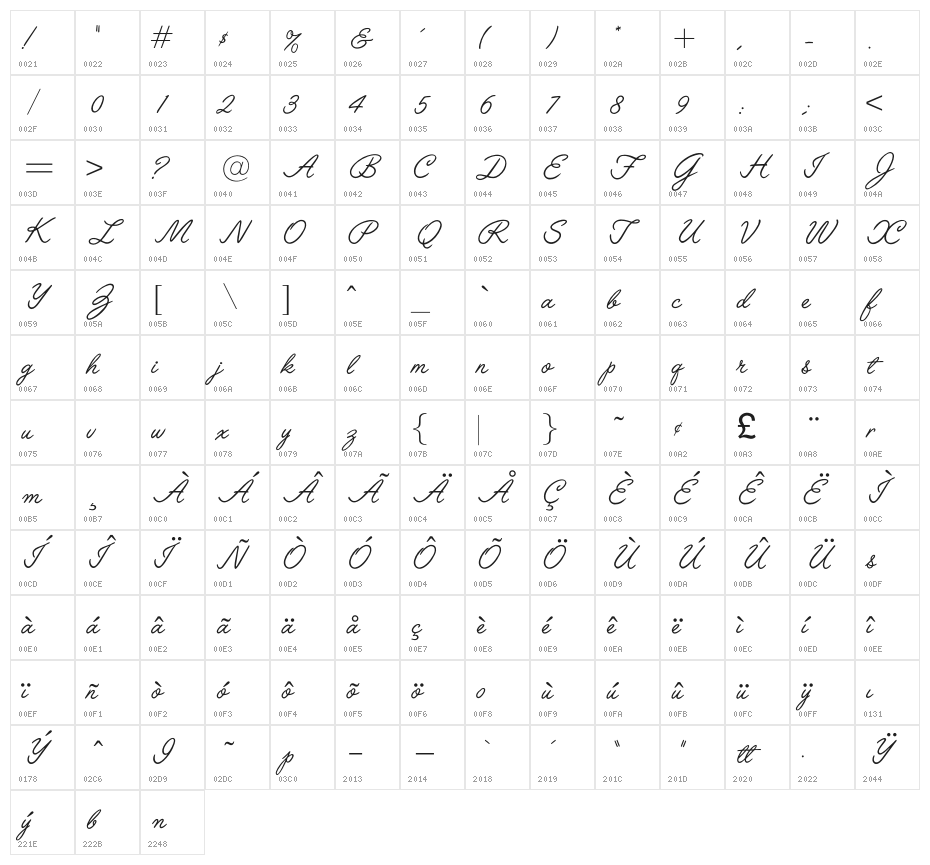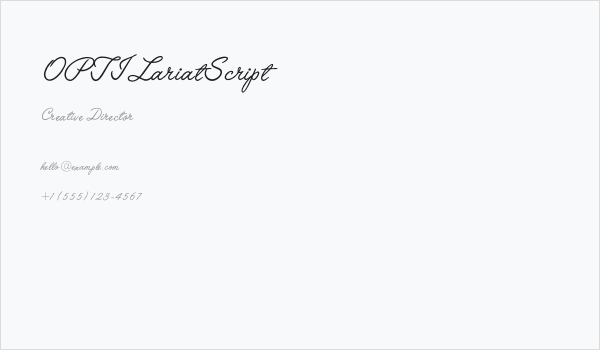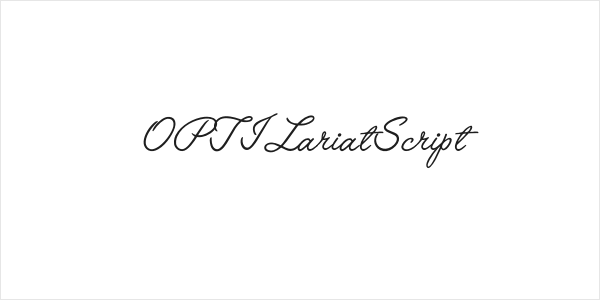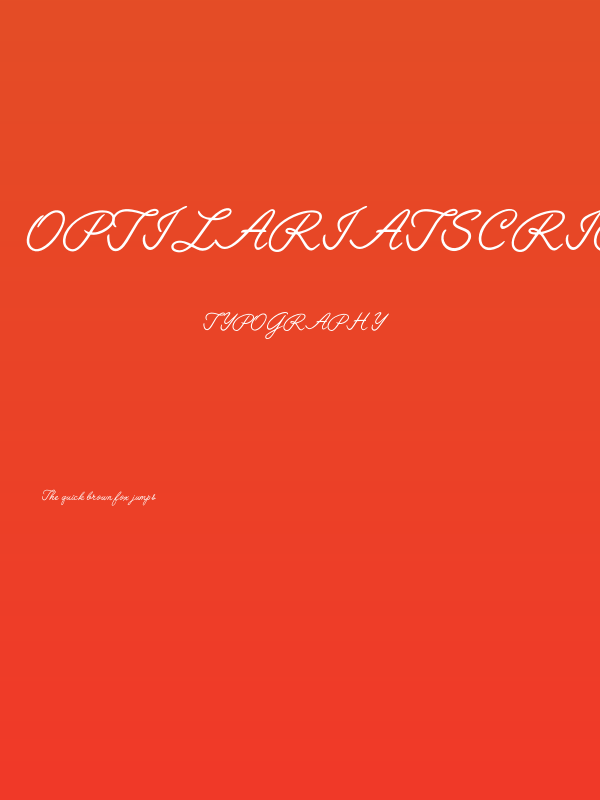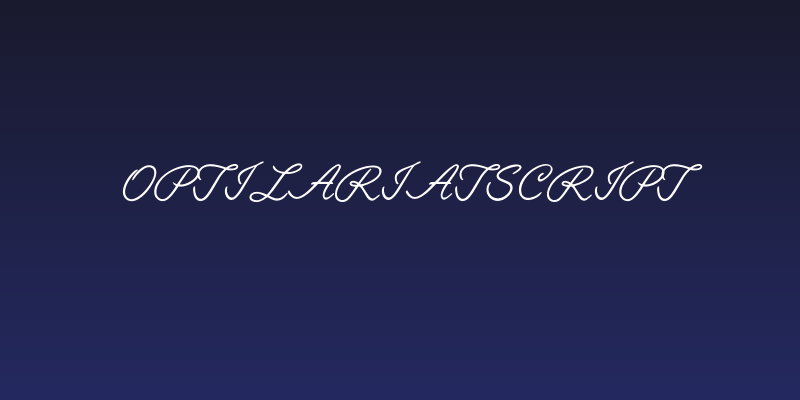
OPTILariatScript Font
OPTILariatScript Description
This elegant script font features a flowing, cursive style that mimics the fluidity of handwriting. The uppercase letters are gracefully connected, while the lowercase letters maintain a consistent slant, enhancing the font's sophisticated appearance. The numerals and special characters are designed with the same attention to detail, ensuring a cohesive look across all elements. The font's smooth curves and balanced proportions make it suitable for a variety of design applications. Its classic script style is both timeless and versatile, ideal for projects that require a touch of elegance and refinement.
| Overall Style | Classic |
| Use Case | Logos, Invitations, Decorative text |
| Proposed Projects | Wedding invitations, greeting cards, elegant branding, and logo design. |